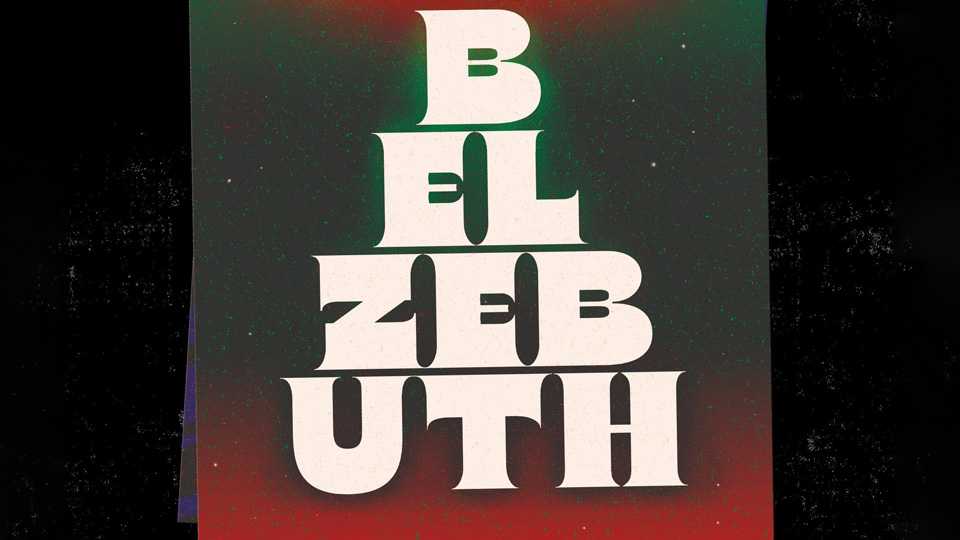
Download Belzebuth font, a vintage-inspired bold fat black all caps display typeface. Belzebuth works well for branding, posters, packaging or publications.